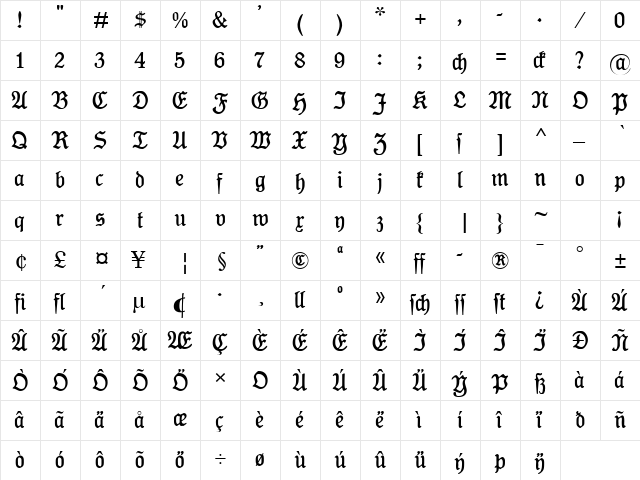
Koenig-Type Mager Regular
| Designer | Dieter Steffmann |
Design Context for Koenig-Type Mager Typeface
Koenig-Type Mager is a composed and adaptable typeface that performs quietly and consistently across a wide range of design contexts.